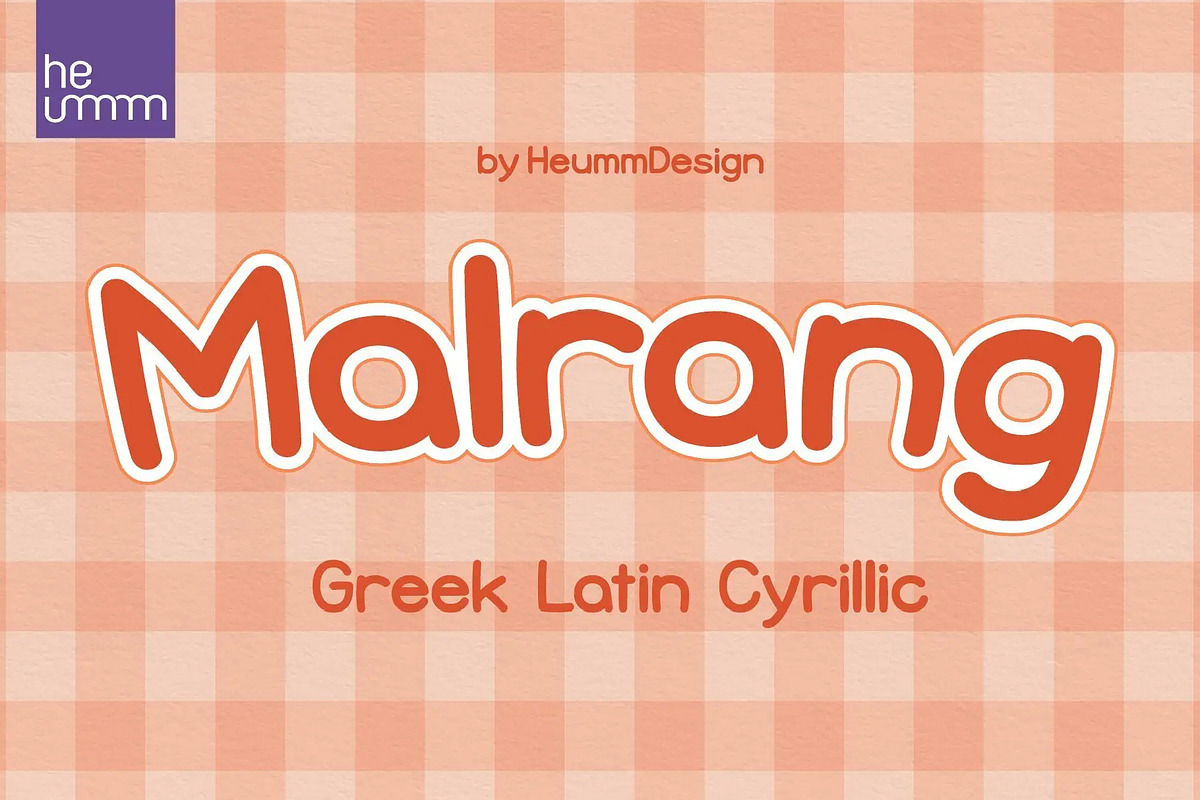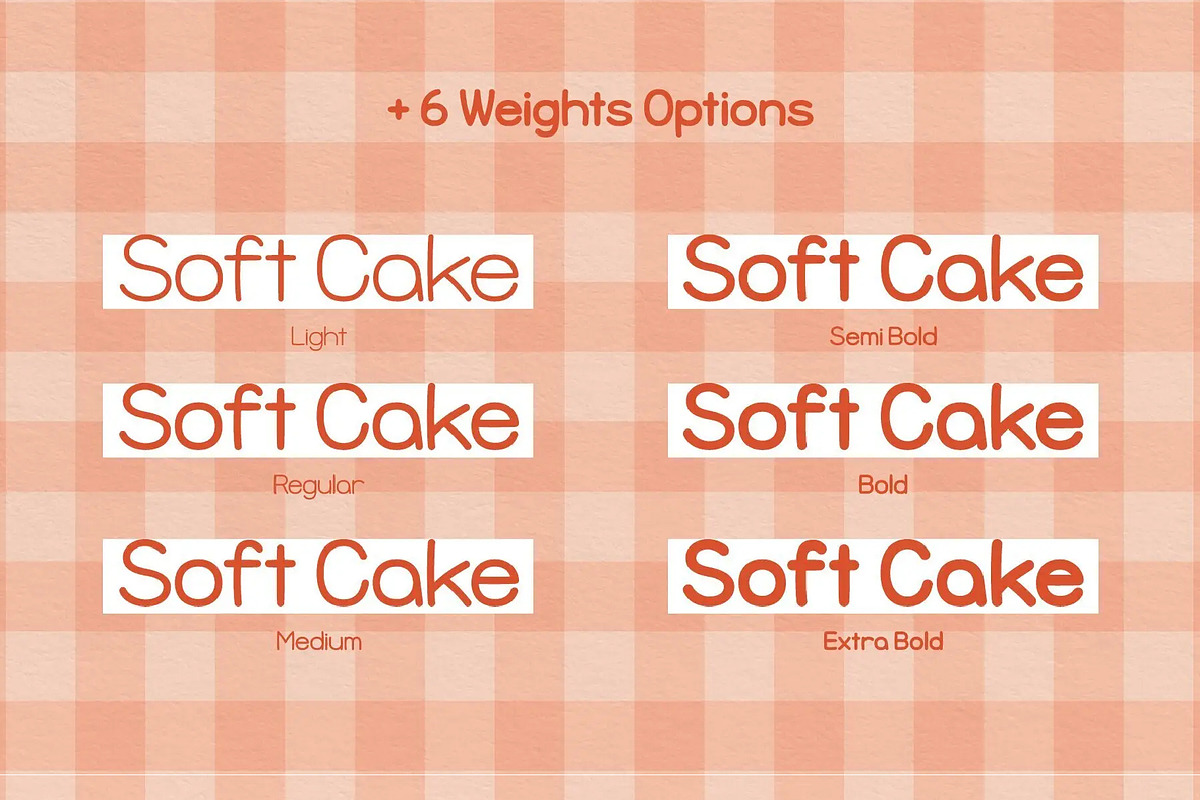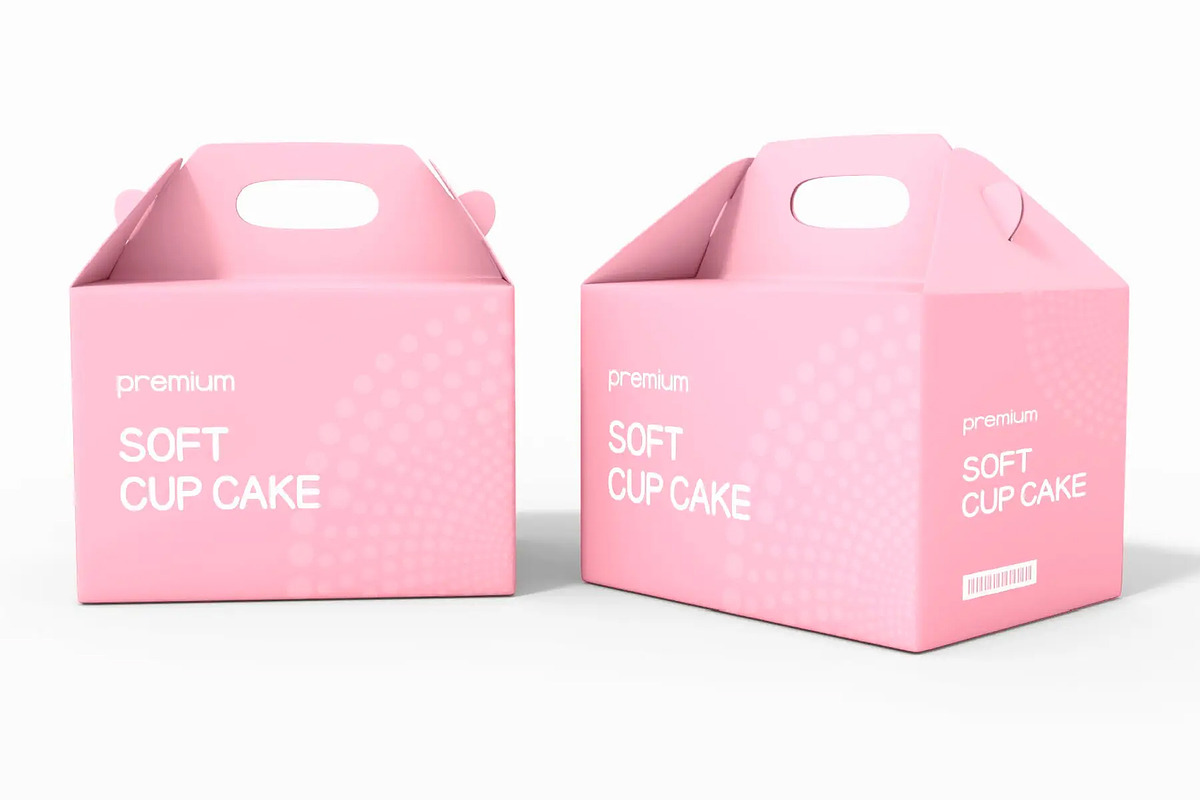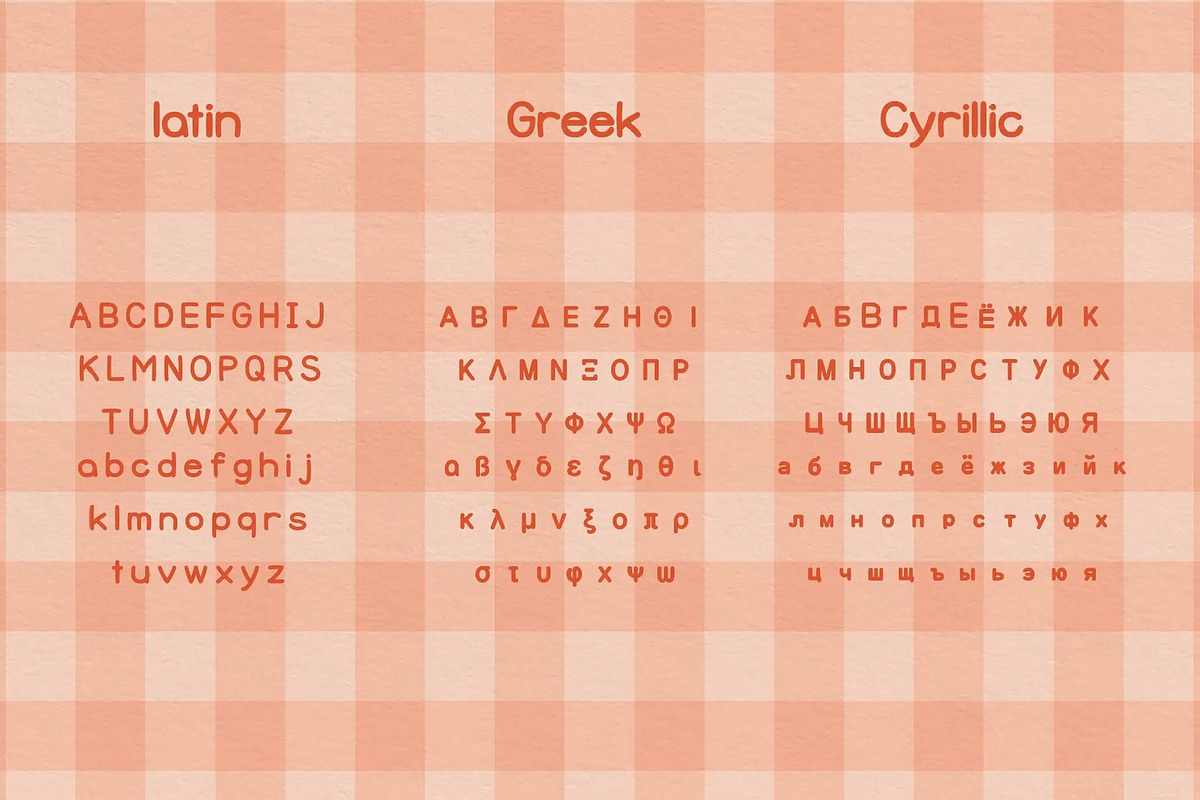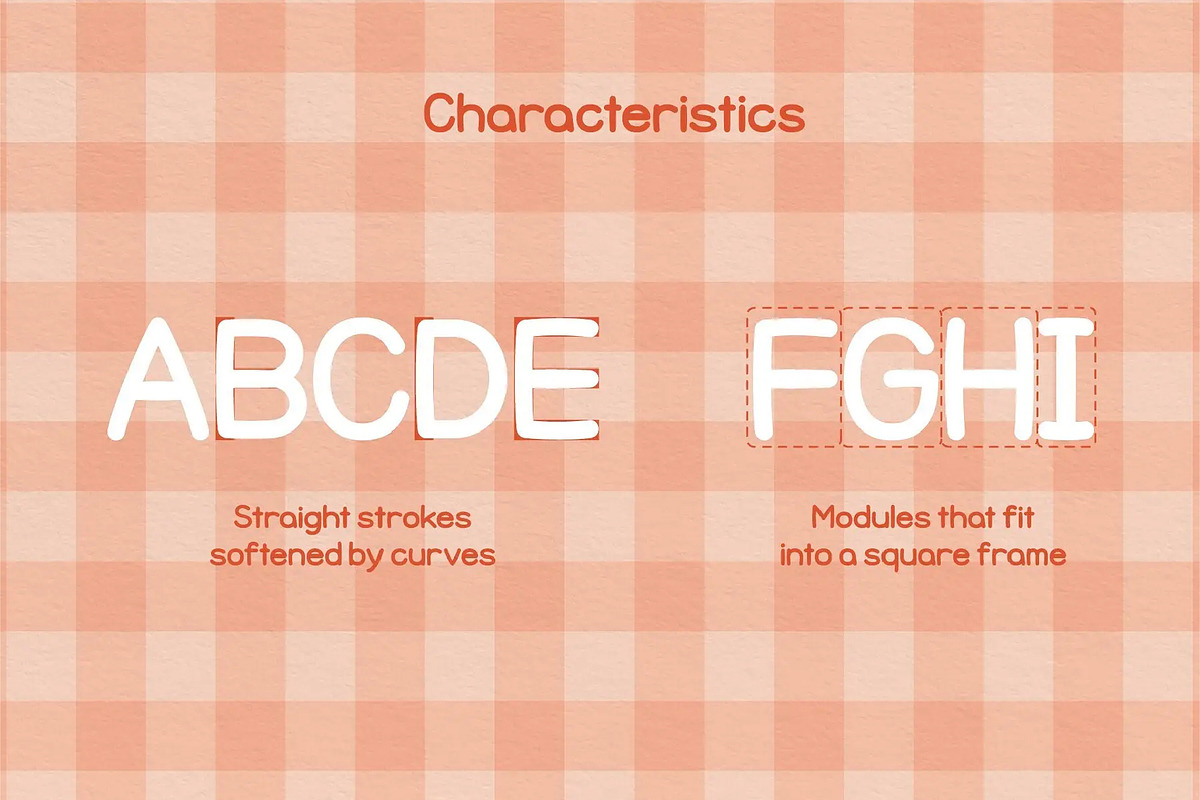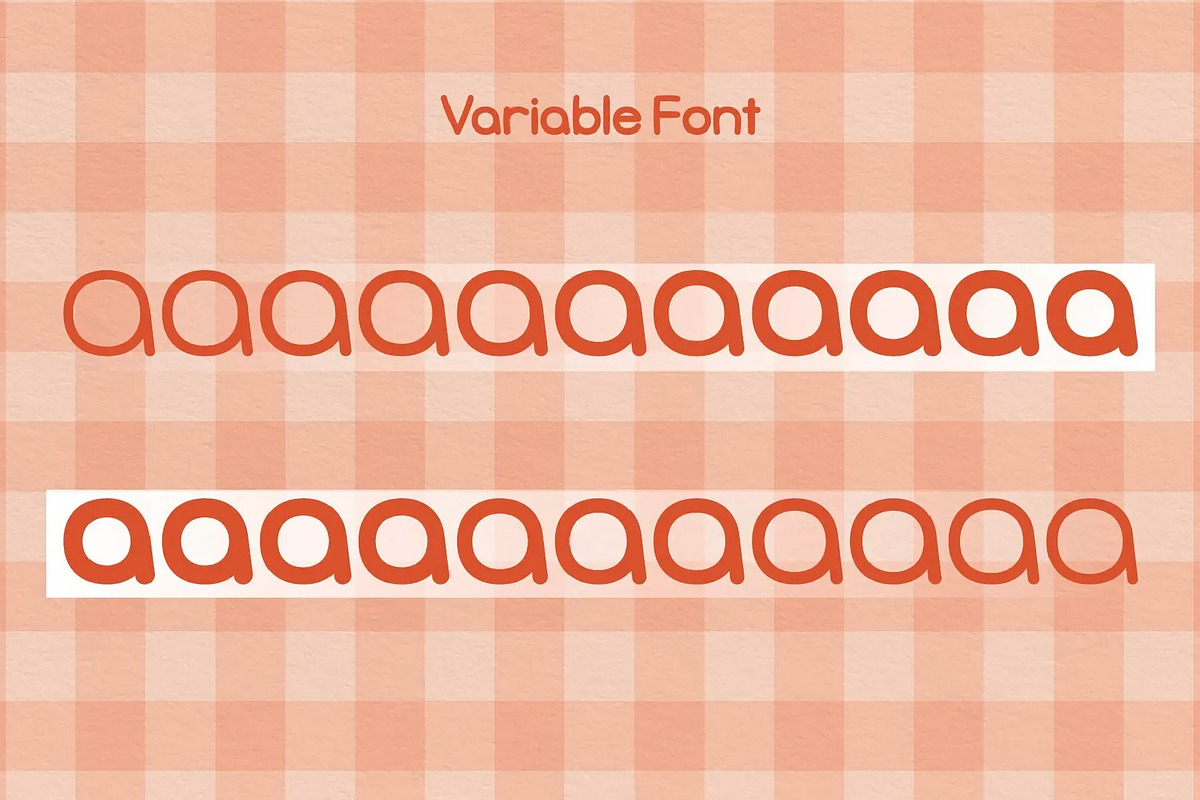
HU Malrang is a font that gives a round and soft feel to its tightly packed modules.
This font has a variable function, allowing users to fine-tune the thickness they want. (Available only in Adobe programs.) Six basic weights are provided so that they can be used even in programs that do not apply the variable function.
There is 7 weight of HU Malrang : Light, Regular, Medium, SemiBold, Bold, ExtraBold, Variable
- Multilanguage (Basic Latin, Western European, Euro, Catalan, Baltic, Turkish, Central European, Romanian, Pan African Latin, Dutch, Afrikaans, Basic Greek, Basic Cyrillic, Mathematical Operators)